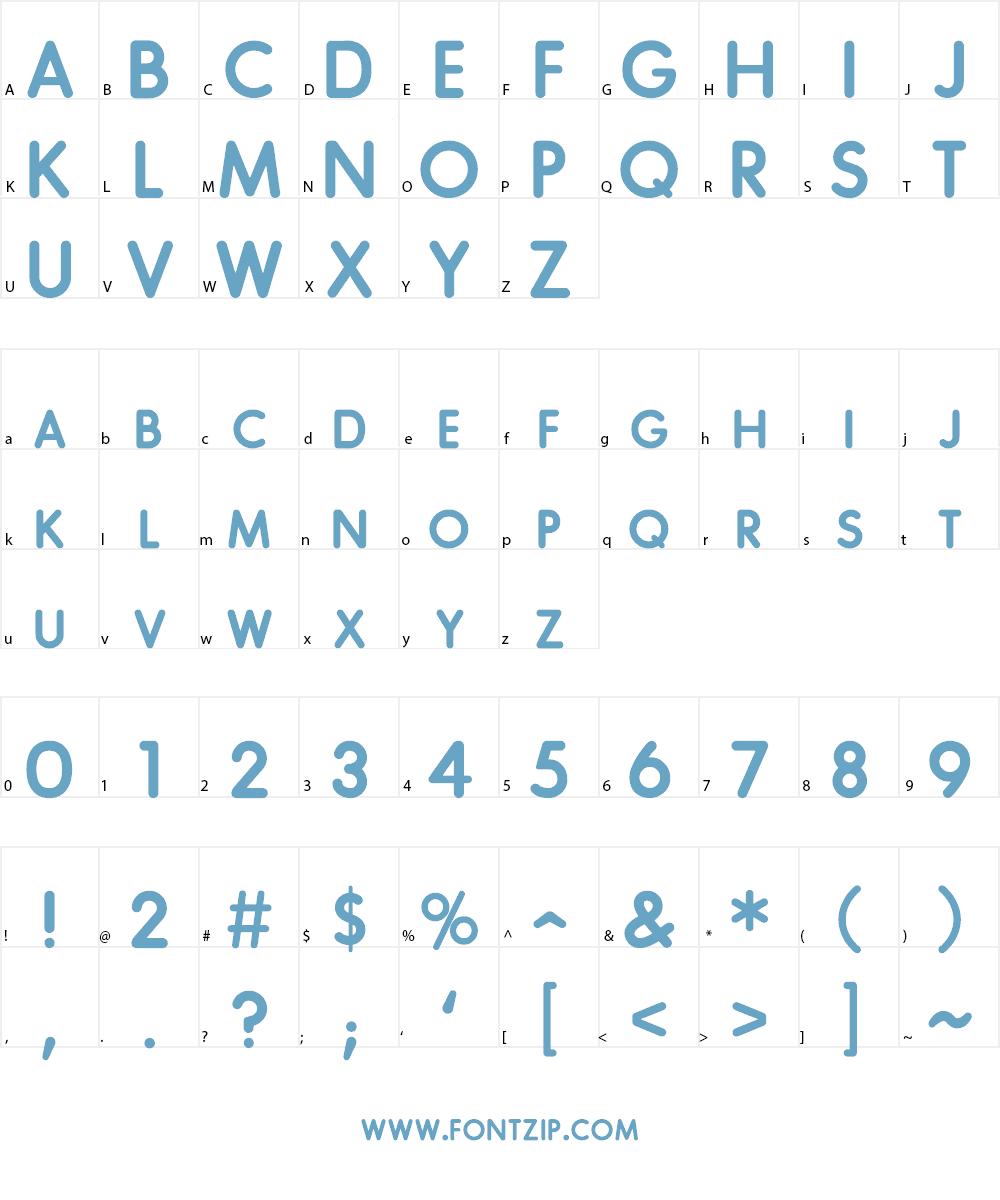
Reconstitution of a originally bitmapped font used on some character generators of a large Brazilian TV station from circa 30 years ago, so the weight is medium and can be some heavy to plain text.
I liked that typeface so much, and I decided to made the font in TrueType format, because it doesn't existed (unlike FHWA fonts, from road signing, that existed physically and were officially made), and incredibly doesn't exists till today! I decided to made the font because the most hard to do - a plain trace with rounded tips - is already made by the softwares I used, as Inkscape.
"Coverface" comes from a satire of mine at YouTube called "Salt Cover" (see tvsaltcover channel) that parodied Brazilian Television stations, and on making this font I wanted to make the best parodies of the world - well, I still achieved it, but the font is here.
This font is in development since 2006 and nothing hinders it to have future versions...
All the options reproduce the three most frequent sizes the font appeared on-screen. Bold is the smaller, roman is a little larger and light is the largest and uppercase only (and it had small caps, very oftenly seen).
Expect for future versions, apparently foreign accented characters are not the same on all the fonts.